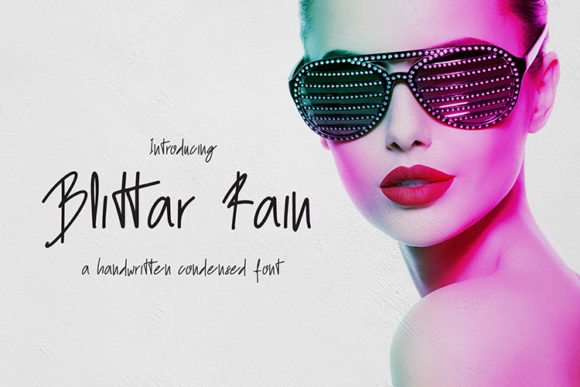
The Blittar Rain Font: A Modern Signature Style to Elevate Your Designs
Have you ever been in the middle of a design project, and suddenly, you’re stuck on finding the perfect font? I recall a recent experience where I was working on a branding project for a trendy boutique hotel. The client wanted a font that exuded a sense of modern sophistication and approachability. After hours of scouring through font libraries, I stumbled upon the Blittar Rain font. Its smooth, signature style instantly caught my attention, and I knew I had found the one.
An Honest Review of Blittar Rain
• ✨ Modern and smooth signature style: Blittar Rain boasts a sleek, contemporary look that’s perfect for designs that require a touch of elegance.
• ✅ Highly versatile: This font can be used for a wide range of projects, from branding and advertising to packaging and digital media.
• 💡 Easy to read: Despite its stylish appearance, Blittar Rain remains highly legible, making it suitable for body text and headlines.
While Blittar Rain is an excellent font, there are a few minor quirks to be aware of:
• 🤔 Limited character set: Blittar Rain might not have an extensive character set, which could limit its use in certain projects that require a broader range of characters.
• ⚠️ Not ideal for body text: While readable, Blittar Rain is best suited for headlines and titles. For longer body text, you might want to pair it with a more traditional font.
One of the standout features of Blittar Rain is its support for OpenType features. This allows you to access a range of stylistic alternates, glyphs, and ligatures to further customize your text. To access these features:
The Designer Inspiration Behind Blittar Rain
Blittar Rain was designed with the modern designer in mind. Its creator aimed to craft a font that was both stylish and versatile, capable of elevating a wide range of design projects. While the exact inspiration might be unclear, it’s evident that Blittar Rain was designed to make a statement.
Q: Is Blittar Rain suitable for body text?
A: While Blittar Rain is readable, it’s best suited for headlines and titles. For longer body text, consider pairing it with a more traditional font.
Q: Does Blittar Rain support OpenType features?
A: Yes, Blittar Rain supports OpenType features, allowing you to access stylistic alternates, glyphs, and ligatures.